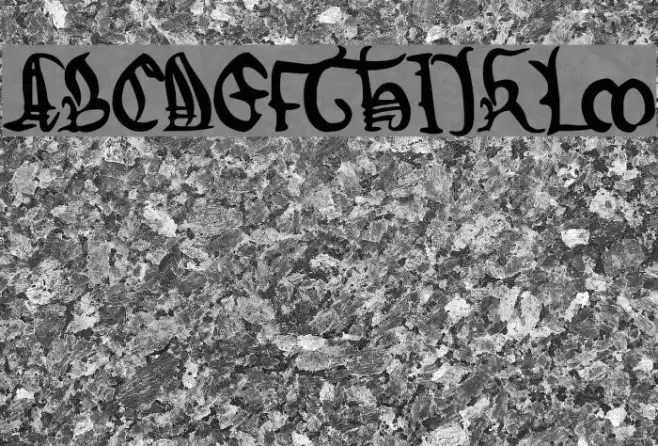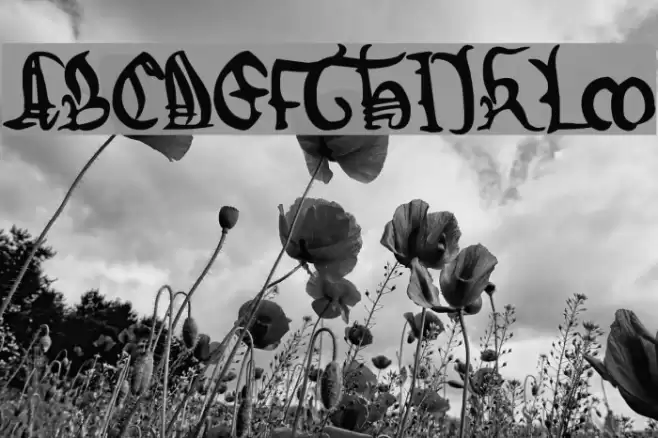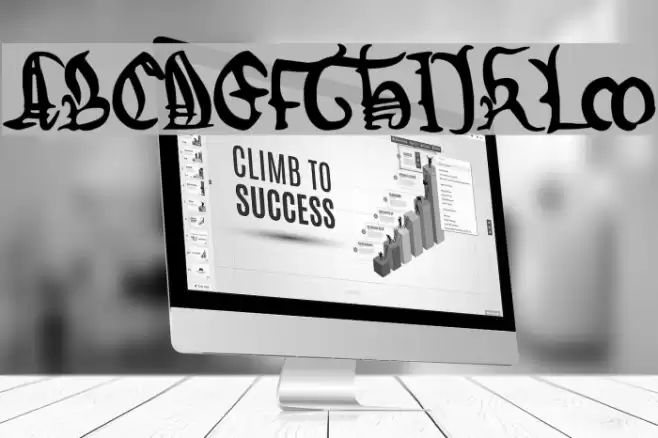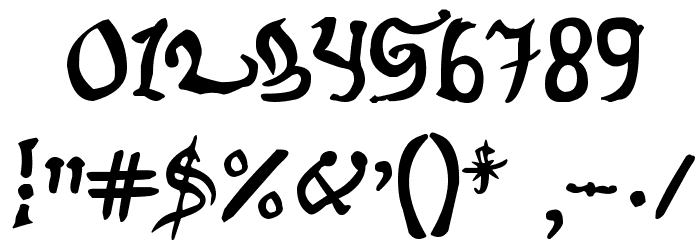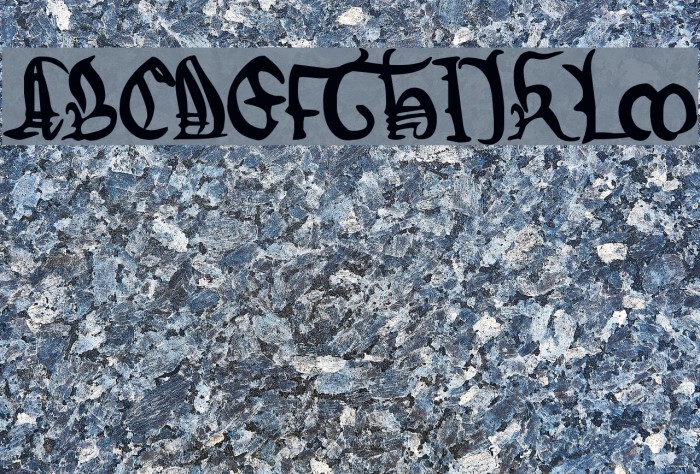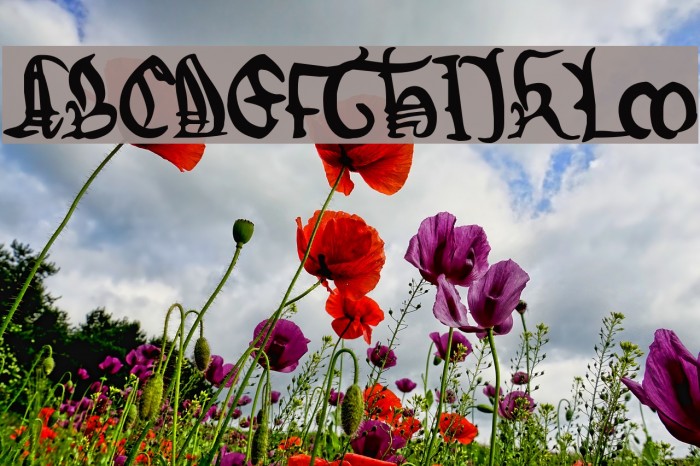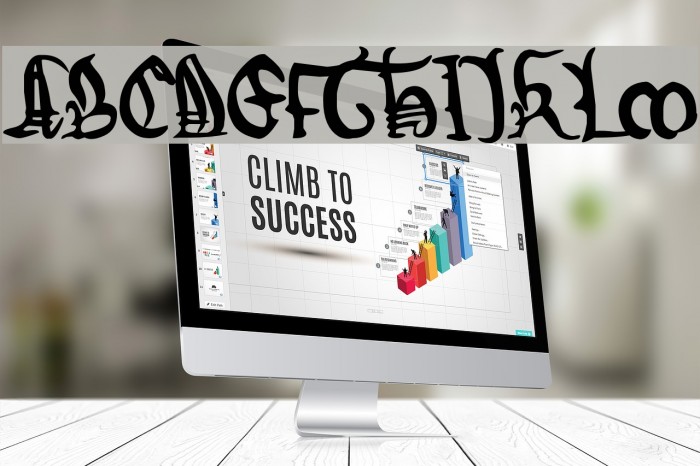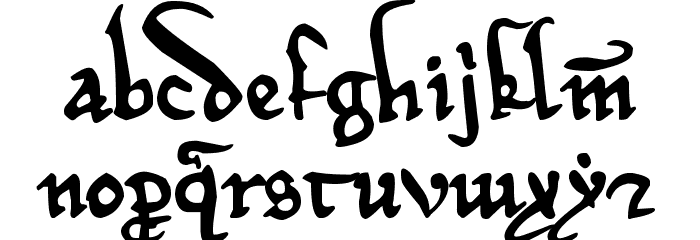
Magna Carta Font
Magna Carta Description
This font features a distinctive and ornate style reminiscent of medieval script, with intricate detailing and flourishes that evoke a historical and regal aesthetic. The uppercase letters are bold and elaborate, while the lowercase letters maintain a consistent flow with unique character shapes. The numerals are equally stylized, adding to the overall decorative appearance. Special characters are crafted with the same attention to detail, enhancing the font's cohesive look. This font is ideal for projects that require a touch of elegance and historical charm.
An ornate, medieval-inspired font with intricate detailing and flourishes from Gothic fonts.
- Proposed Projects: Ideal for historical documents, invitations, book covers, and branding that requires a classic and elegant touch.
- Overall Style: Vintage